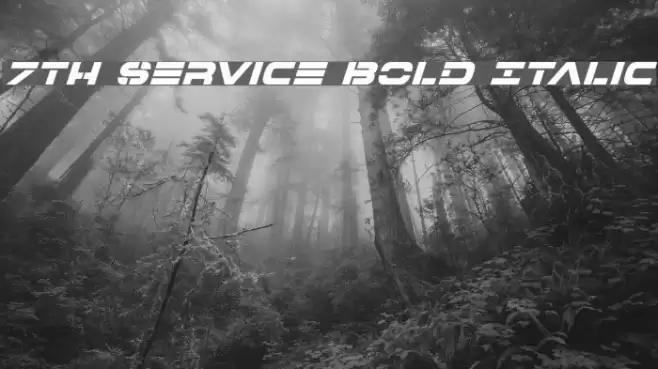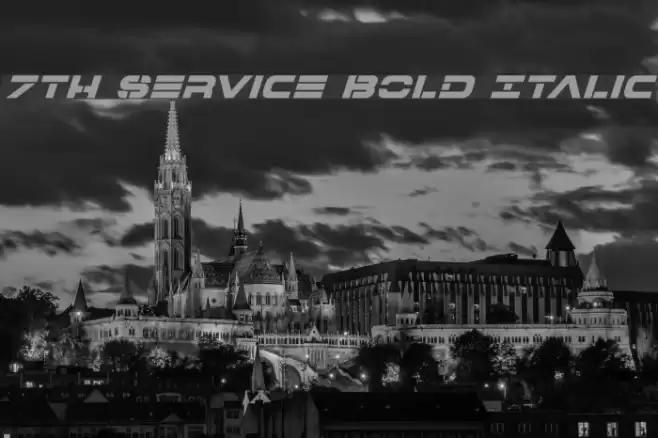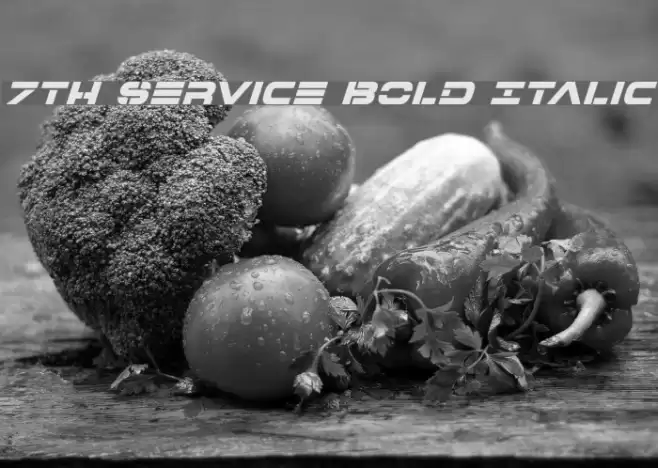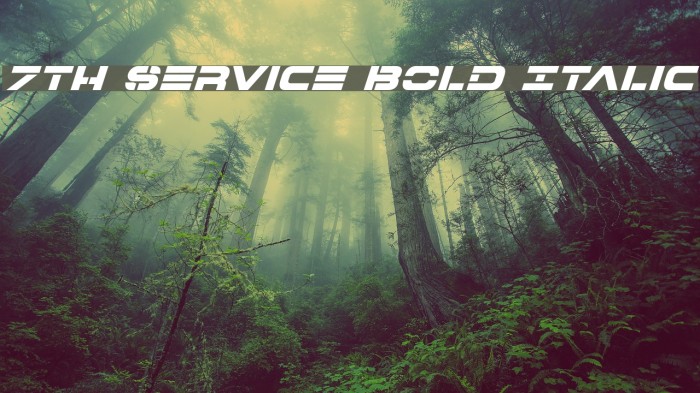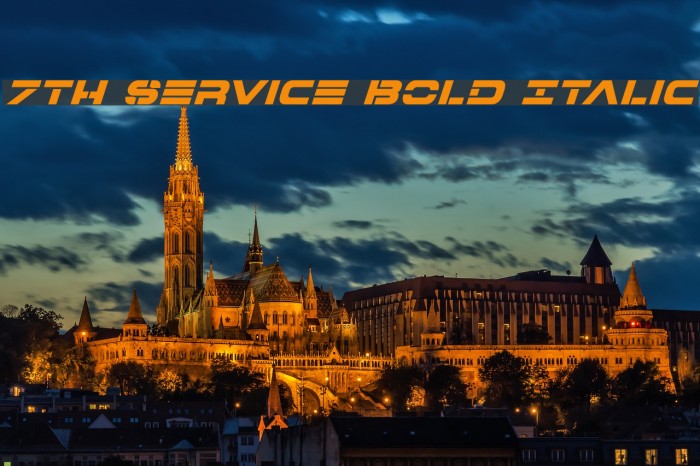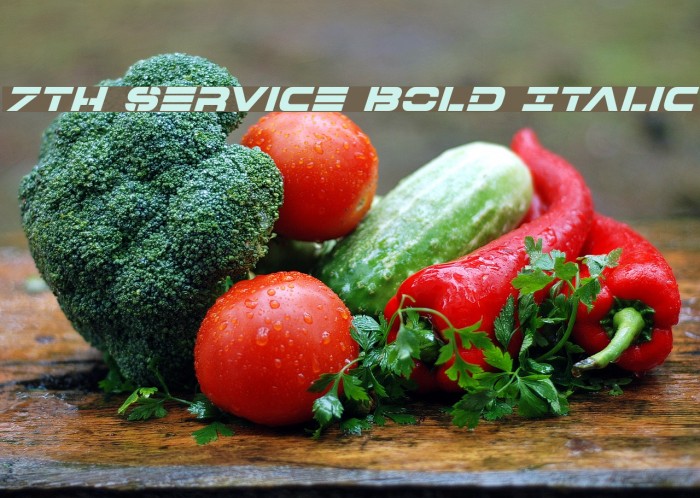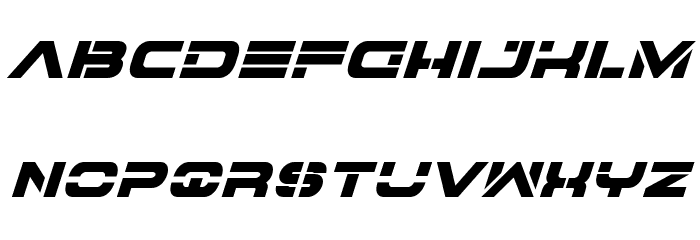
7th Service Bold Italic Font
7th Service Bold Italic Description
This font features a bold and italicized style with a futuristic and dynamic appearance. The characters are designed with sharp angles and a slanted orientation, giving a sense of motion and speed. The uppercase letters are distinct with unique cuts and lines, while the lowercase maintains a consistent style. Numbers and special characters follow the same bold and angular design, making them stand out. The overall look is modern and tech-inspired, suitable for projects that require a strong and impactful visual presence.
A bold, italicized font with a futuristic and dynamic style from Uncategorized fonts.
- Proposed Projects: Ideal for technology branding, sports team logos, video game titles, and sci-fi themed designs.
- Use Case: Logos, Headlines